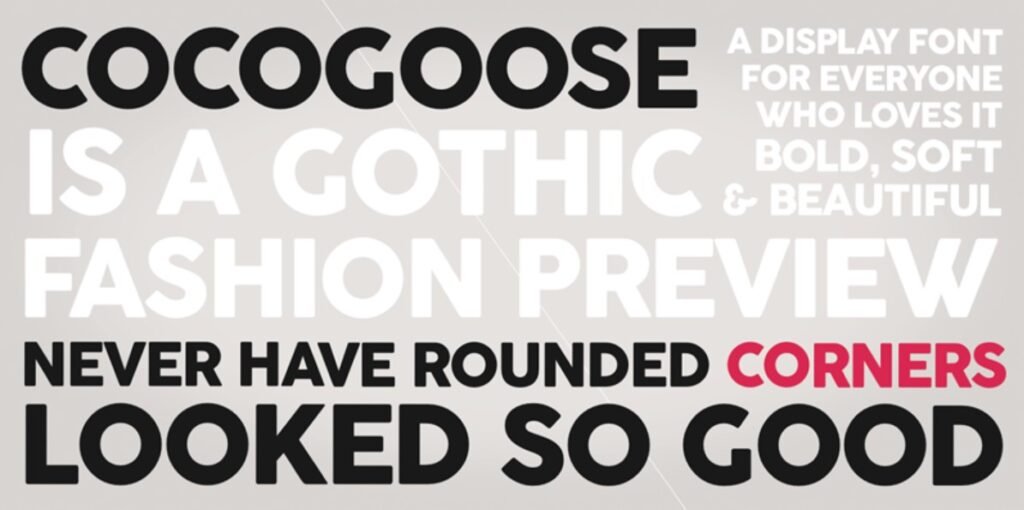
Coco Goose Font is a modern, geometric sans-serif typeface that has captured the attention of graphic designers and creative professionals across industries. Known for its bold elegance and sleek versatility, this typeface is a popular choice in fashion, editorial, branding, and digital design.
What is Coco Goose Font?
The Coco Goose font was designed by Zetafonts, a respected type foundry based in Italy. It draws inspiration from the geometric forms of Futura, blending a clean, modern structure with a bold, luxurious flair.
Part of the Coco Goose font family, it includes multiple weights and styles such as:
- Coco Goose UltraLight
- Coco Goose Regular
- Coco Goose Bold
- Coco Goose Inline and Outlined versions
While primarily a display font, Coco Goose offers surprising readability, making it suitable for both digital and print applications.
Key Features of the CocoGoose Typeface
- Modern geometric sans-serif – Clean and minimalistic, with fashionable inspiration
- Multilingual support – Covers Latin-based and extended characters
- Highly legible – Even in heavier weights
- Ideal for display use – Headlines, banners, posters, and packaging
- Fashion-forward feel – Perfect for luxury, lifestyle, and trend-driven brands
Whether you’re using Coco Goose Bold font for a headline or the lighter variants for subtle elegance, this typeface adds a polished edge to your designs.
Applications of the Coco Goose Font
The Coco Goose font is widely used across various design mediums. Here’s where it really shines:
Design and Branding
- Modern logos
- Fashion labels
- Editorial design
Web and UI/UX Design
- Hero sections
- App interfaces
- Call-to-action buttons
Social Media and Marketing
- Instagram quote graphics
- Promotional banners
- Email headers
Print and Packaging
- Magazine titles
- Product labels
- Event posters
Conclusion – Why Designers Love Coco Goose Font
The Coco Goose font delivers a bold, modern aesthetic with fashion-forward vibes. Its geometric structure and elegant versatility make it a must-have for designers working on brand identities, digital products, and visual content.
Whether you’re creating a sleek editorial layout or an upscale website interface, Coco Goose helps your message stand out with confidence and style.